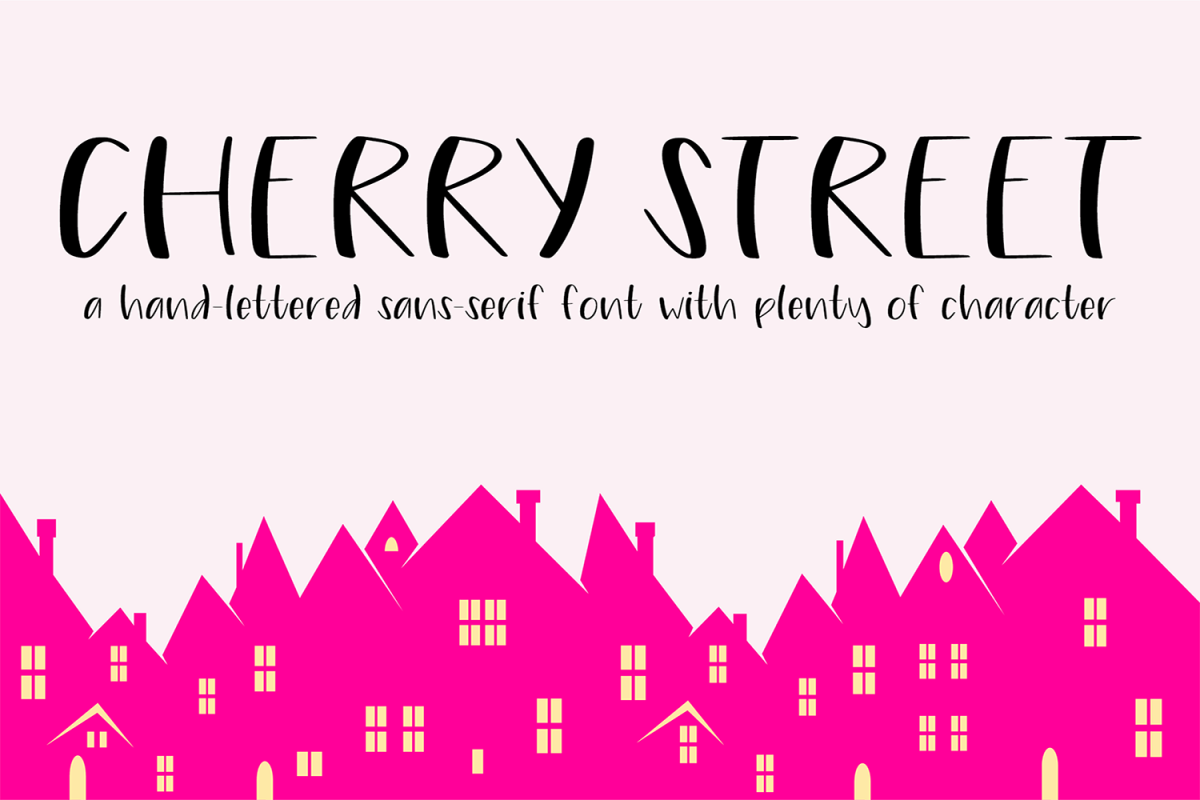
Cherry Street
Introducing Cherry Street! A Fun and Quirky Handwritten Font!
Cherry Street has a genuine handwritten feel. Created using Procreate on the iPad, every single element is hand-lettered.
Cherry Street is a great font to use for all sorts of projects -- from graphic design to physical products! The possibilities are endless.
Cherry Street